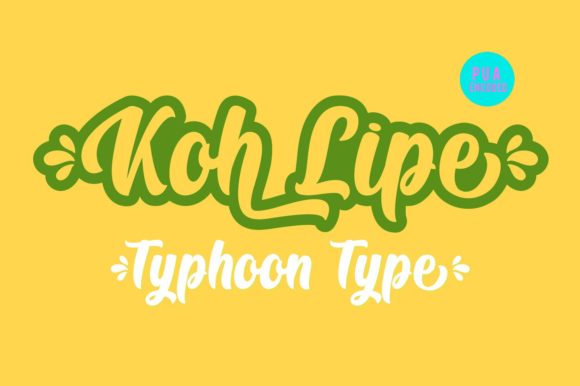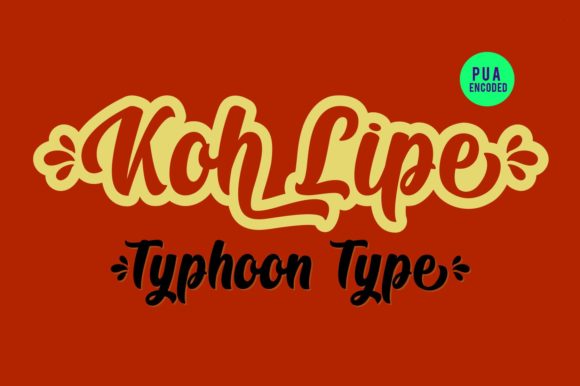
Introduction to Koh Lipe Font
Have you ever stared at a blank page, trying to come up with the perfect headline for your creative project? The words just won’t flow, and you’re left with a design that’s missing that special something. That’s where the Koh Lipe Font comes in – a gorgeous and bold handwritten font that’s sure to add a touch of style and sophistication to your designs.
This stunning font is designed to give your headlines and logotype projects a confident and dynamic feel, perfect for designers looking to add a nostalgic character to their work. With its high-quality design and transparent background, the Koh Lipe Font is a valuable resource for any creative project. And the best part? It’s free to download, making it an accessible design resource for designers of all levels.
Whether you’re a seasoned pro or just starting out, the Koh Lipe Font is sure to elevate your designs and leave a lasting impression on your audience. In this article, we’ll take a closer look at this amazing font and explore its features, benefits, and how you can use it to take your creative projects to the next level.
Key Features of Koh Lipe Font
- Unique, hand-drawn design with a tropical island vibe, perfect for creative projects.
- Features a large character set, including uppercase and lowercase letters, numbers, and punctuation marks, as well as Thai and Latin characters.
Honest Review: Koh Lipe Font
I recently had the chance to work with the Koh Lipe Font, and I must say, it’s been a delightful addition to my design resource library. ✨ One of the standout features is its high quality and crisp typography, making it perfect for any creative project that requires a touch of elegance.
- ✨ High-quality typography
- ✨ Versatile and suitable for various creative projects
While I do appreciate the Koh Lipe Font, I have encountered a few limitations. ⚠️ The font’s range of styles is somewhat limited, and I’ve found myself wishing for more variations to work with. Additionally, the font’s legibility can be a bit tricky in smaller sizes.
Overall, I’d say the Koh Lipe Font is a solid addition to any designer’s library. While it may not be perfect, its strengths far outweigh its limitations. I’d definitely recommend giving it a try for your next creative project.
The Koh Lipe Font is ideal for creating visually appealing designs with a transparent background. It is commonly used in creative projects such as logos, brochures, and social media graphics. You can also use the font to add a touch of elegance to your presentations and documents.